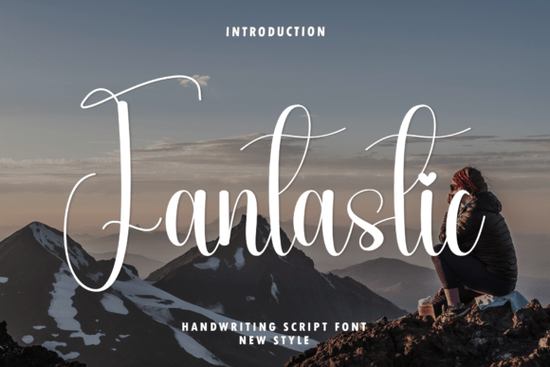
If you’ve been searching for a handwritten script that feels both personal and polished, Fantastic Font might be exactly what your next project needs. It’s the kind of typeface that doesn’t shout for attention instead, it draws people in with its graceful curves and effortless rhythm. Whether you’re designing wedding invitations, branding a boutique event, or adding subtle elegance to lifestyle photos, this font adapts without losing its character.
What makes it stand out? The strokes feel organic like real handwriting but they’re refined enough to suit high-end applications. You won’t find stiff or robotic letterforms here. Instead, each character flows into the next, making it ideal for projects where warmth and sophistication need to coexist.
Who is this font best suited for?
If you run a small creative business or sell printables on Etsy, Fantastic Font gives your designs an instant upgrade without requiring hours of custom lettering. Crafters love it for vinyl cutting and embroidery digitizing because the lines are clean and scalable. Photographers use it for watermark overlays and album titles especially when working with soft, natural lighting or editorial-style shoots.
It also pairs beautifully with minimalist layouts. Try combining it with a clean sans-serif for contrast, or let it shine solo on textured paper backgrounds. If you’re already using fonts like Fairies or Beloved Script, you’ll appreciate how Fantastic Font slots right in as a more fluid, contemporary alternative.
How does it compare to other handwritten scripts?
Not all script fonts are created equal. Some feel too casual, others too ornate. Fantastic Font strikes a balance elegant but not fussy, modern but not sterile. For example, if you’ve used Family Minimalist for clean, understated projects, you might reach for Fantastic Font when you want something with more movement and personality.
Compare it to Sunset Brush, which leans into painterly texture, or Belinda Script, which has tighter spacing and vintage charm. Fantastic Font sits comfortably between those offering brush-like flow without heavy texture, and romantic flair without old-world frills.
You can see how it performs across different weights and sizes by checking out the full specimen Fantastic Font. It includes alternates and ligatures, so you can tweak words to feel more natural or unique perfect for names, logos, or signature-style phrases.
What kinds of projects work best with this font?
- Wedding stationery menus, place cards, save-the-dates, and thank-you notes.
- Lifestyle branding boutique product labels, spa packaging, or café chalkboards.
- Editorial design magazine pull quotes, blog headers, or book chapter openers.
- Digital templates Instagram story overlays, Pinterest pins, or Canva quote graphics.
- Print-on-demand products mugs, tote bags, journals, or wall art with inspirational quotes.
One thing to note: because of its flowing nature, avoid using it for long paragraphs or body text. It’s meant to be savored not scanned. Stick to headlines, short phrases, or decorative accents where legibility isn’t compromised by style.
Any tips for getting the most out of it?
Yes and they’re simple:
- Pair with neutral backgrounds. Cream, soft gray, or muted pastels let the font’s elegance come through without visual competition.